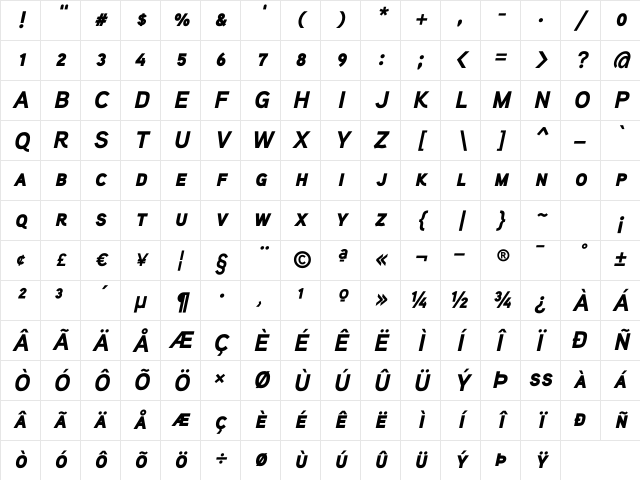
Aaux ProBlack Italic SC Regular Free Font
Aaux ProBlack Italic SC Regular
Complete Aaux ProBlack Italic SC Regular glyph index. Displaying only characters natively supported by Aaux ProBlack Italic SC Regular font.
Design Context for Aaux ProBlack Italic SC
Aaux ProBlack Italic SC is a composed and adaptable typeface that performs quietly and consistently across a wide range of design contexts. The slanted form adds forward momentum and visual energy.
Pro Tip: Use Aaux ProBlack Italic SC for emphasis, pull quotes, and subheadings where its slanted energy can add rhythm to the layout.